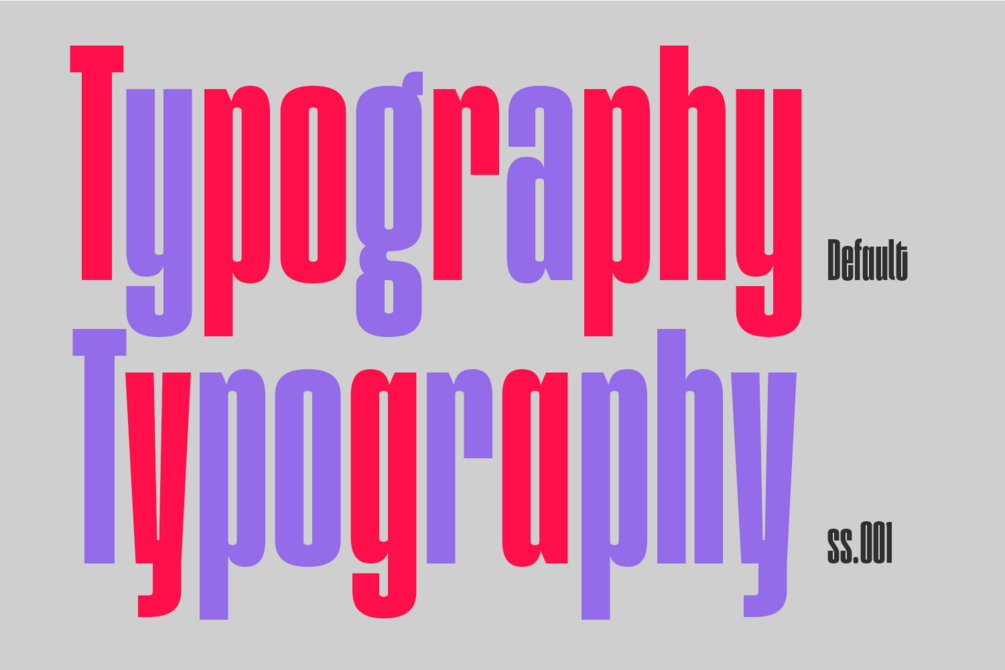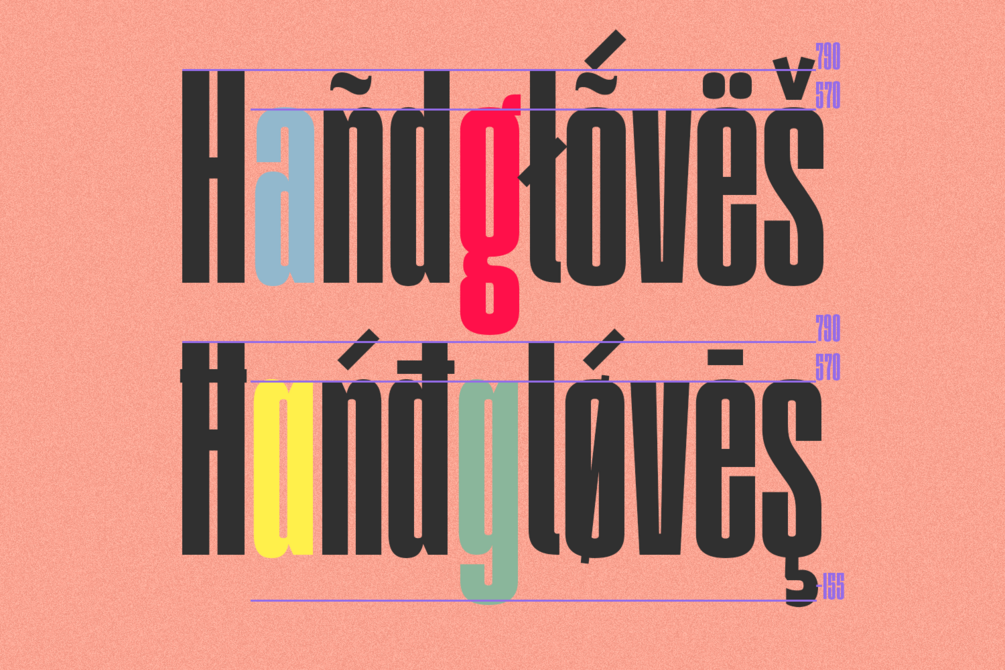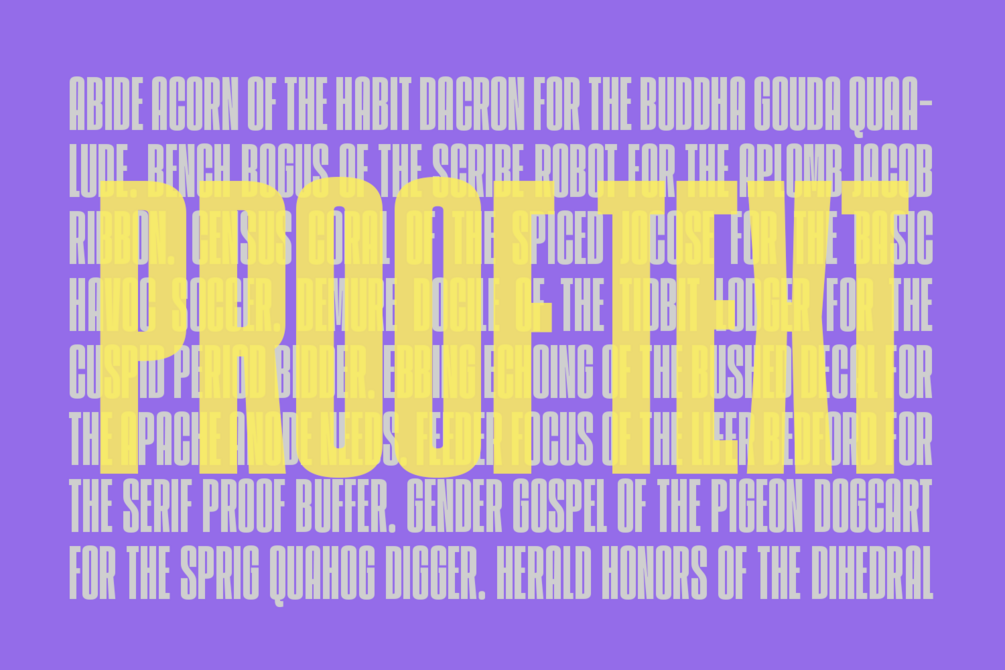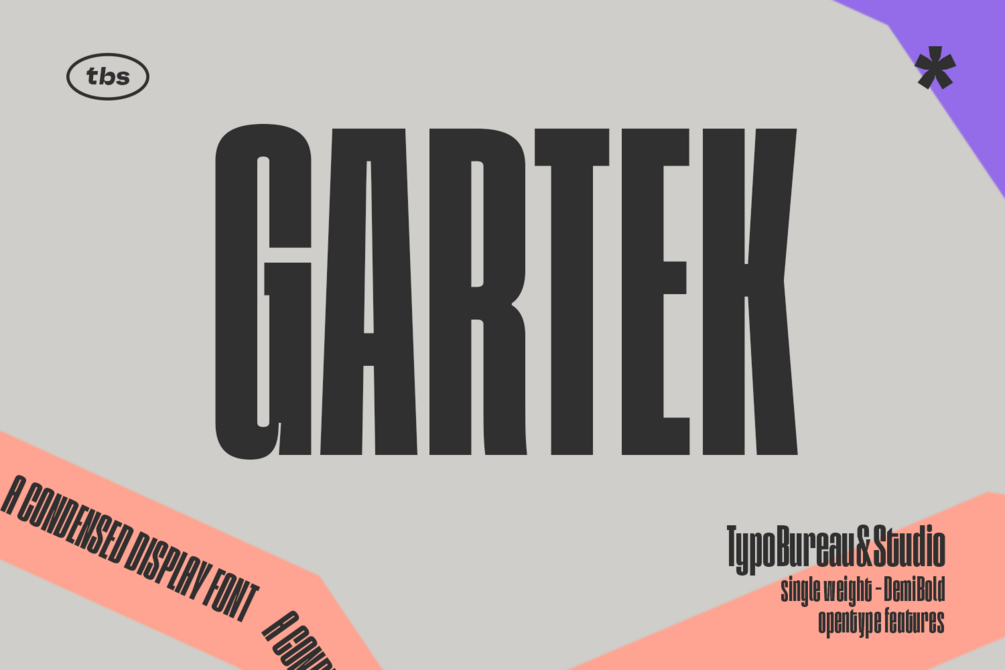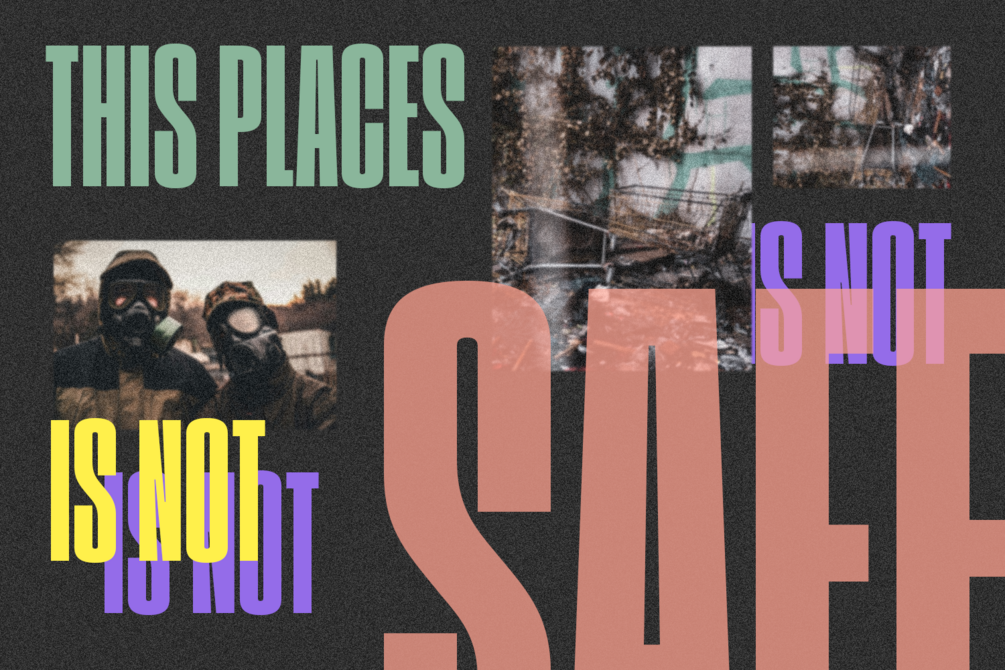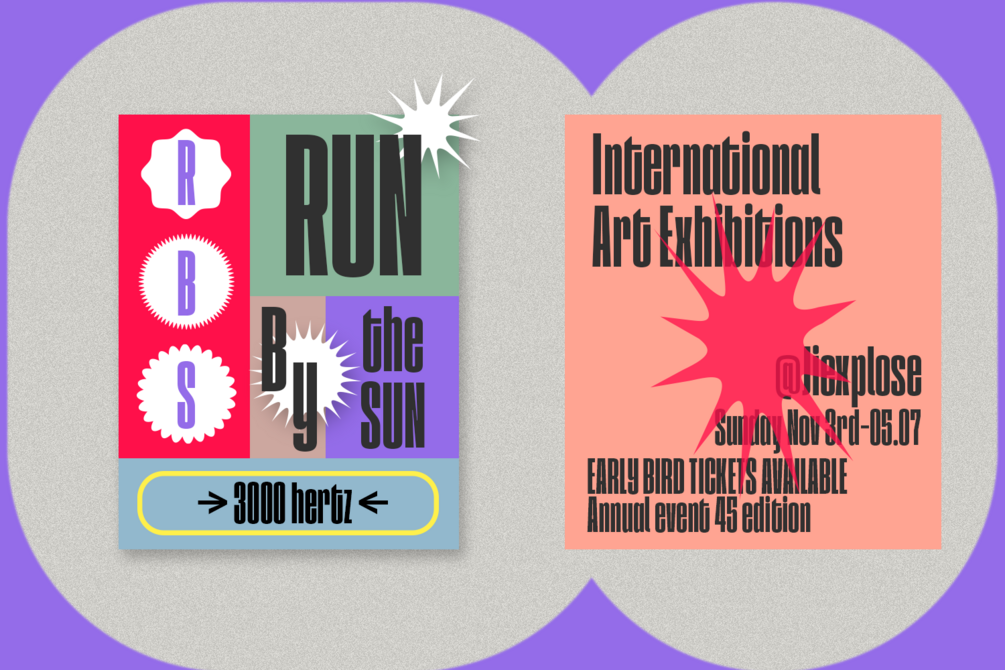
TBS Gartek Condensed
TBS GARTEK CONDENSED is a latin based condensed type of font that has a different characters from the previous TBS GARTEK BLACK font, TBS GARTEK CONDENSED has a strong yet sharp looks character, with a post modernism and semi 90's nostalgic, supported by more than 60± accent languages ranging from West, South East, Central Europe and a bit of Vietnamese. TBS GARTEK CONDENSEDis able to complete your current needs who are designing something great. the single DemiBold weight is stunning in Magazine, Posters, Social Media Content, headlines, clothing, large print formats and wherever you want to see it. Inspired by the design styles of post modernism and popular style's nowadays, let's get your project elevate works with TBS GARTEK CONDENSED.
Alternate several glyphs
A,G,R and lowercase